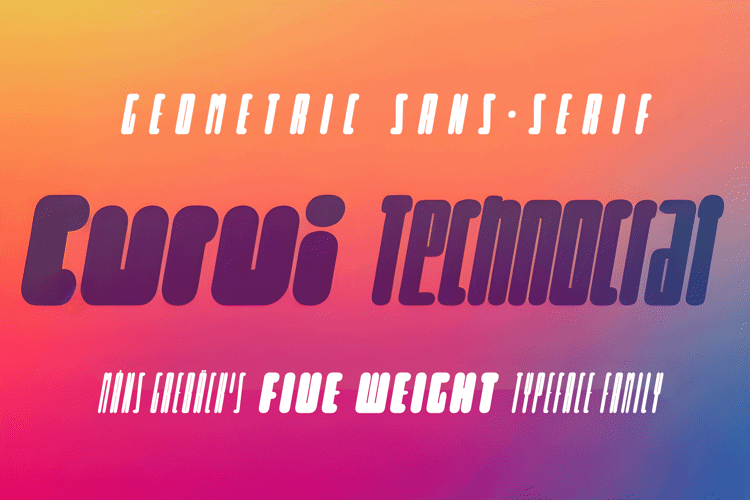
Curvi Technocrat Font
About Curvi Technocrat Font
Curvi Technocrat is a rounded, geometric font that captures the essence of speed and forward movement. Inspired by the smooth curves of race cars and the energy of urban graffiti, this heavy, slanted font family adds a touch of dynamism and softness to your designs.